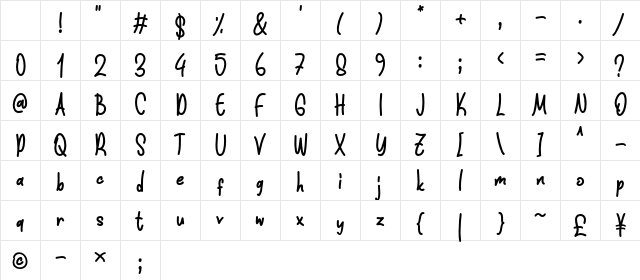
Funnis has an approachable, lighthearted character - its loose, expressive forms are well-suited to children's content, casual branding, and fun-first design.
Font Pairing: Pairs well with a rounded or humanist sans for body copy, maintaining the friendly tone without relying on Funnis to carry extended reading.
Pro Tip: Use Funnis at larger display sizes where its expressive character can land. Pair with a clean, simple sans for body copy to maintain readability.